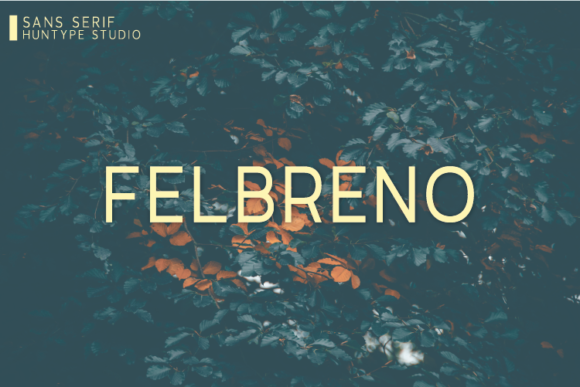
The Perfect Addition to Your Design Palette
As a designer, you know that sometimes the perfect font can make all the difference in bringing a project to life. Have you ever found yourself stuck on a design, trying to find that elusive combination of style and sophistication? I know I have – and that’s exactly why I’m excited to introduce you to the Felbreno Font.
This beautiful sans serif font is designed to add a touch of elegance and authenticity to any design. With its clean lines and smooth vibe, the Felbreno Font is the perfect addition to your design palette. Whether you’re working on a branding project, a website, or a social media campaign, this font is sure to elevate your work and make it stand out from the crowd.
So why is the Felbreno Font so valuable for designers? For one, its versatility makes it a great choice for a wide range of projects – from modern and minimalist to classic and sophisticated. And with its unique blend of style and functionality, it’s sure to become a go-to favorite in your design arsenal.
Felbreno Font Key Features
- Character Set: Felbreno Font includes a wide range of characters, including Latin, Cyrillic, and Greek alphabets.
- Unique Characteristics: Felbreno Font is known for its unique blend of modern and traditional design elements, making it suitable for a variety of design projects.
Felbreno Font Review
I recently had the chance to work with the Felbreno Font, and I must say it’s a mixed bag. Here are my honest thoughts on what works well and what doesn’t.
- Unique aesthetic: The Felbreno Font has a distinct, modern feel that can add a touch of sophistication to your designs.
- Good legibility: The font is easy to read, even at smaller sizes, making it a great choice for body text.
- Customization options: The font comes with a range of weights and styles, allowing you to fine-tune the look to suit your needs.
- Limited character set: The Felbreno Font has a relatively small character set, which may limit its use in certain situations.
- Not ideal for large blocks of text: While the font is legible, it can start to feel fatiguing when used for extended periods of time.
- No italic or bold options: While the font has a range of weights, it lacks italic and bold options, which may be a drawback for some designers.
Overall, the Felbreno Font is a solid choice for designers looking for a modern, sophisticated look. However, its limitations may make it less suitable for certain projects. With a bit of caution and planning, it can be a great addition to your design toolkit.
Felbreno Font is ideal for creative projects that require a unique and stylish touch. It’s commonly used in:
- Graphic design projects